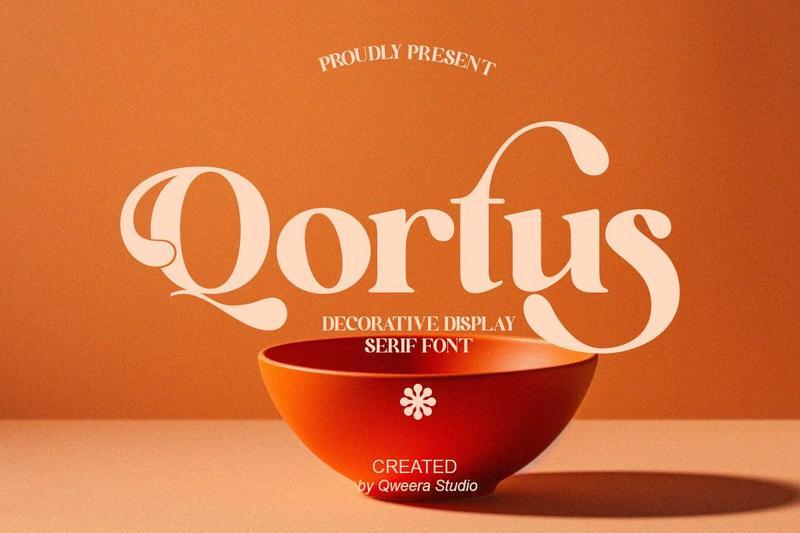
Decorative Display Serif Branding – Qortus XFFP5S8
**Qortus** is a decorative display serif typeface designed to bring warm retro charm, bold personality, and stylish visual impact into modern creative projects. Featuring expressive curves, decorative alternates, and playful ligatures, this font creates a memorable typographic presence with strong branding appeal.
Perfect for product packaging, caf branding, food labels, retro posters, boutique logos, editorial headlines, creative merchandise, lifestyle campaigns, and premium visual identities.
Qortus blends vintage-inspired character with modern readability, making it an excellent choice for designers seeking a display serif with personality, warmth, and creative confidence.
**Features**
– Uppercase & lowercase
– Alternates & ligatures
– Regular & Italic
**Perfect For**
Product packaging, caf branding, retro logos, poster design, food labels, boutique branding, editorial headlines